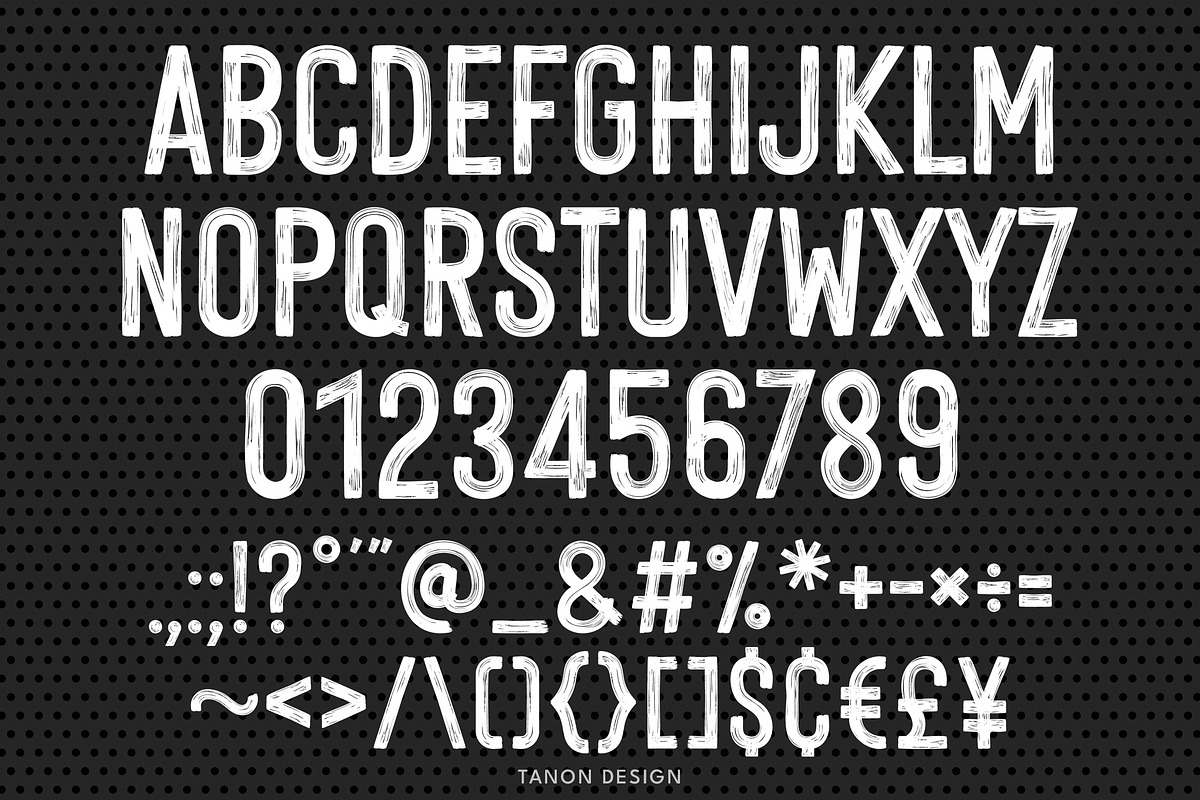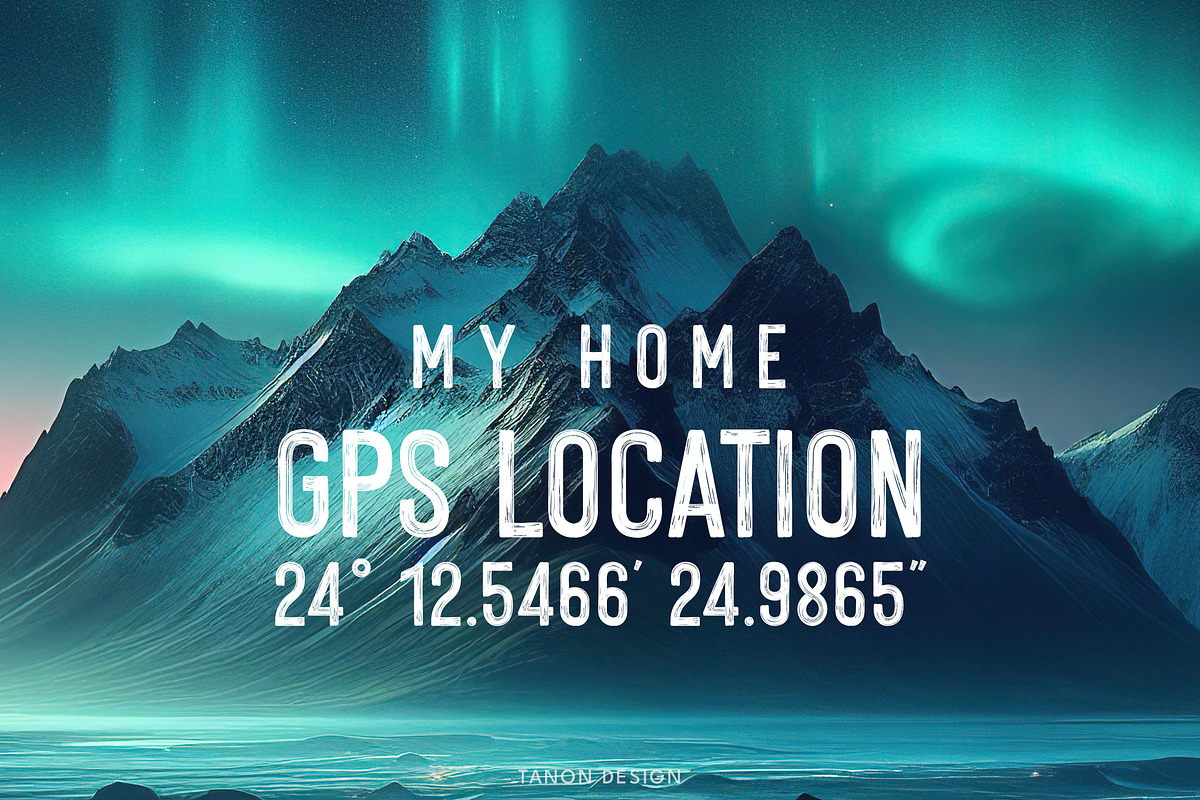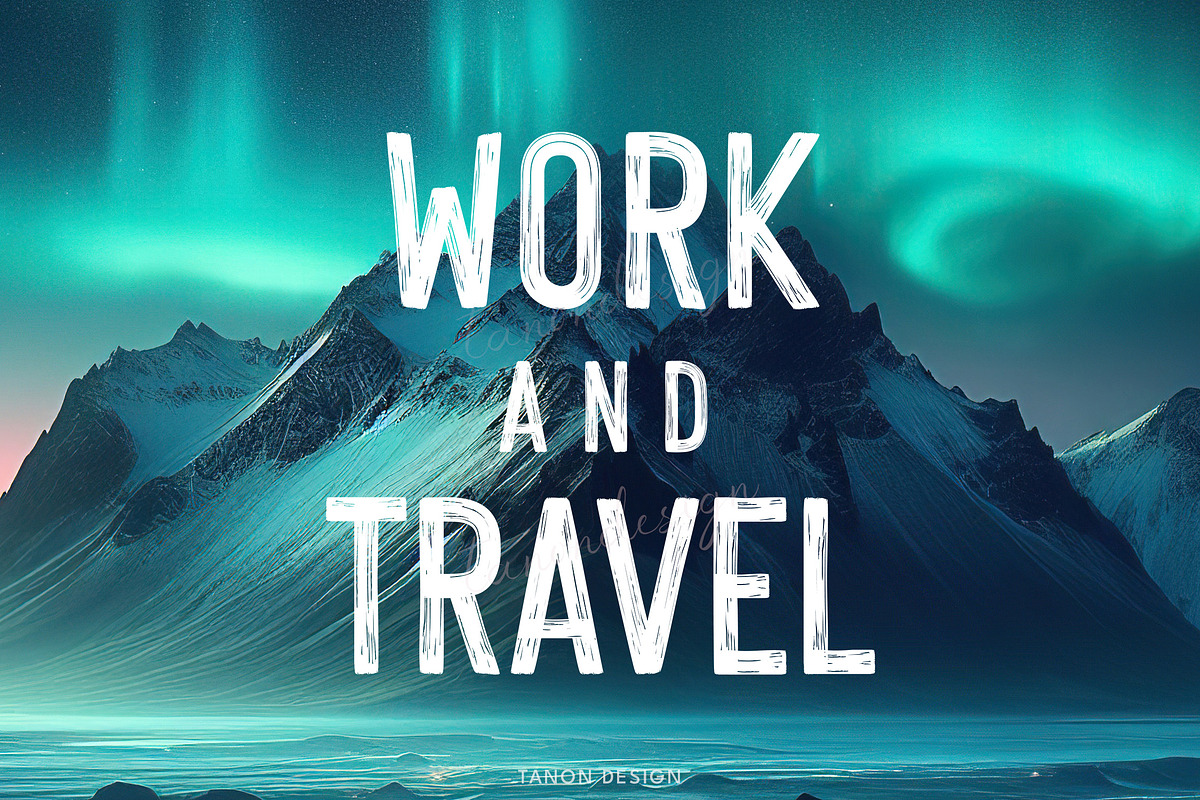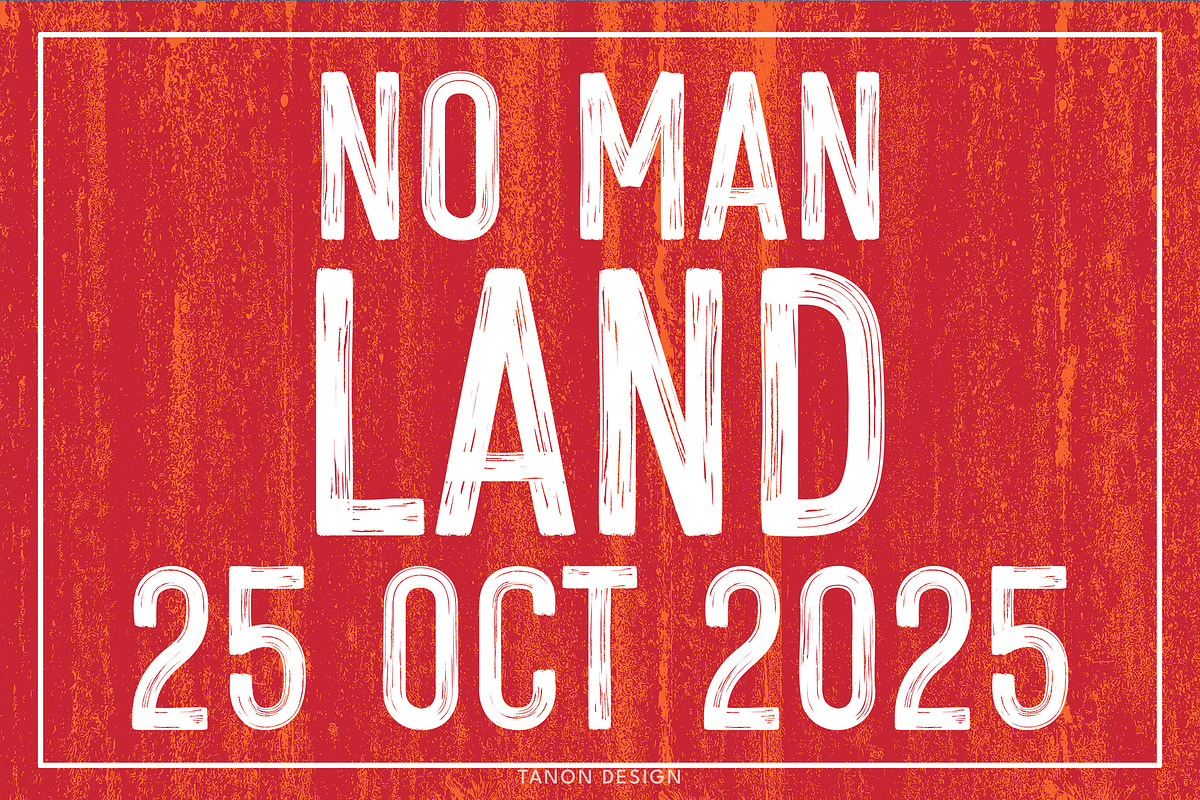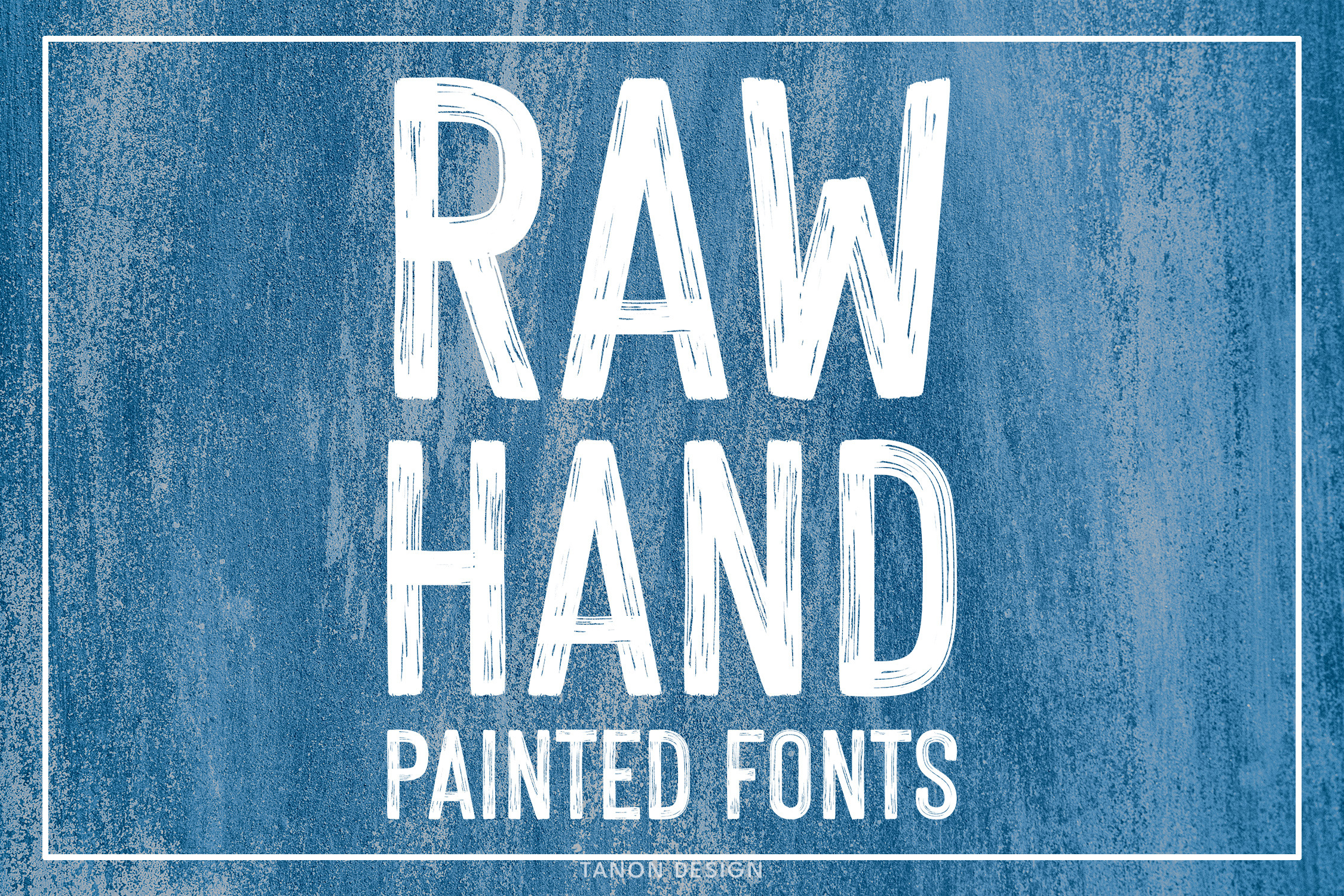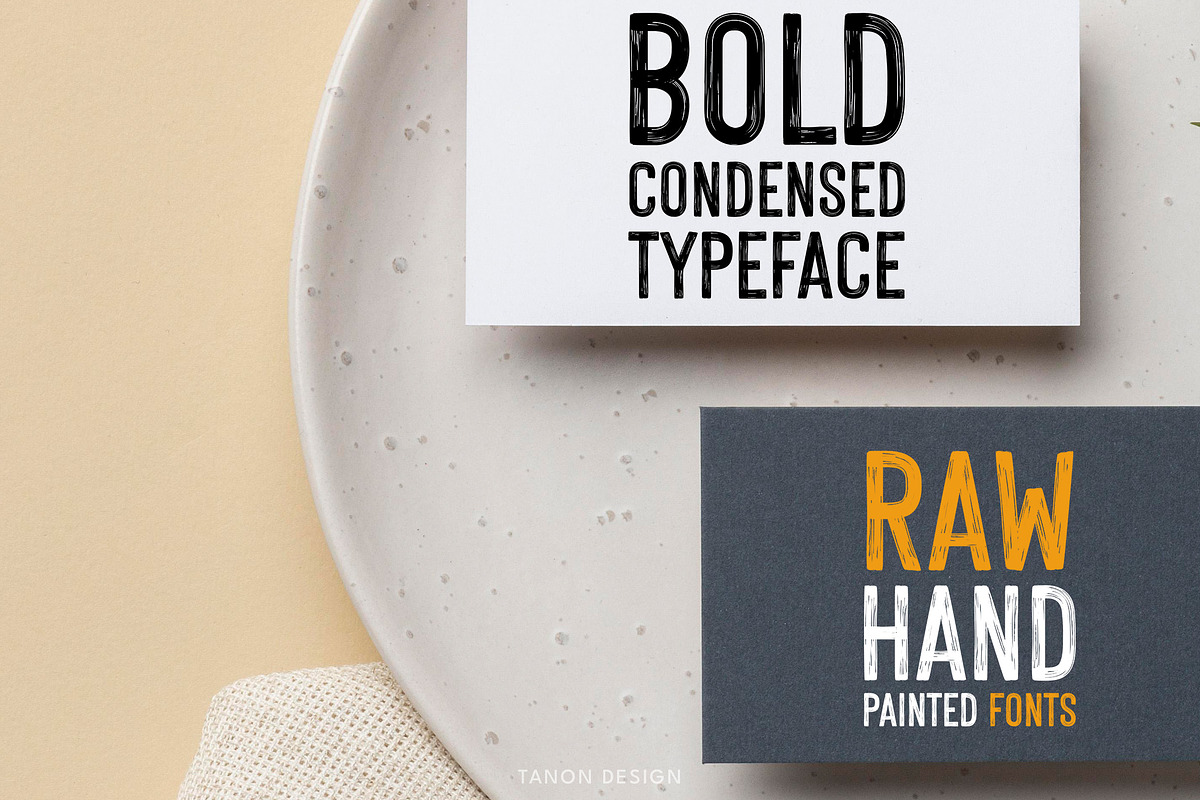
Raw Hand Painted brush fonts
Introducing “Raw Hand Painted” brush fonts a beautiful Bold, condensed handwritten brush font. It will look fantastic on all your project designs including t-shirt designs, mug designs, digital designs, crafts, cards, and any projects!